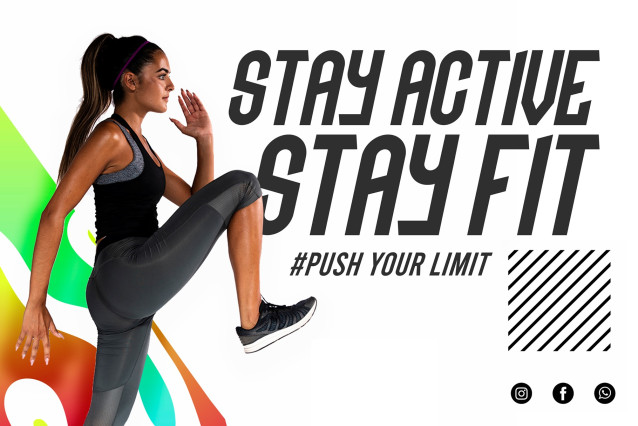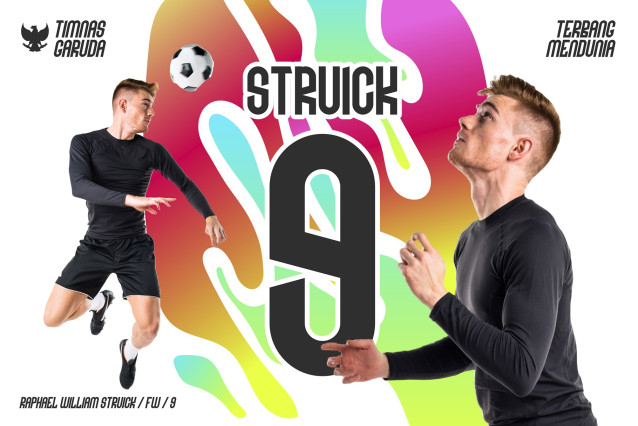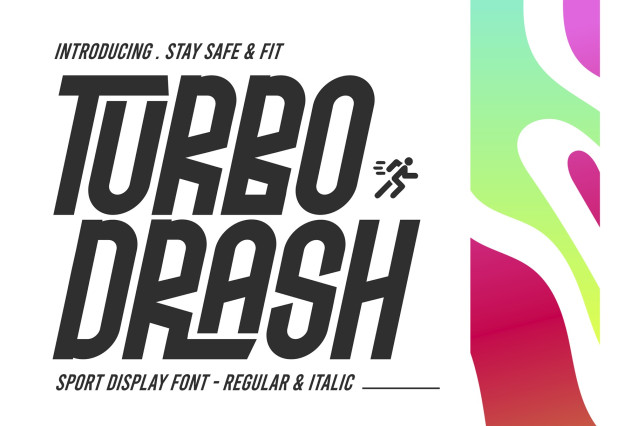
Turbo Drash Font
Turbo Drash Font – Sport Display Font is crafted for impact, speed, and bold creativity. With extended structures, strong lines, and extra unique ligatures, this sport display font brings adrenaline into logos, esports, posters, and athletic branding.
The design world thrives on typefaces that combine modern energy with professional usability. Turbo Drash fits this perfectly, offering regular and italic styles, multilingual support.